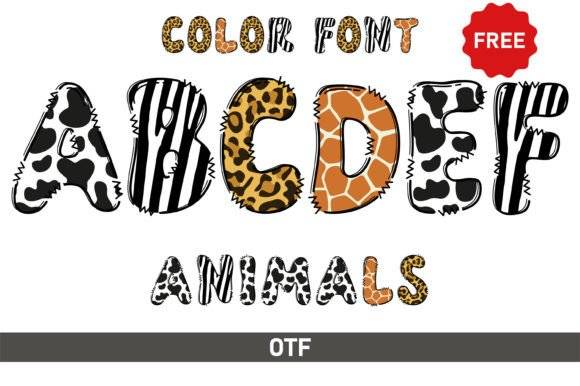
Animals Font for Headlines, Posters and Branding Projects
This download includes the Animals Font, a creative typeface belonging to the font entity category. Designed with animal-inspired elements, it is tailored for attention-grabbing design work in both print and digital contexts. The Animals Font offers unique versatility, making it ideal for various applications such as branding, posters, and children's books. Additionally, it serves as the perfect complement to the anjhay font for creative projects, allowing for a harmonious blend of whimsical and modern design elements. Embrace your imagination and elevate your design work by incorporating this playful typeface into your next creative endeavor.
Perfect for use in children's branding, zoo or wildlife campaigns, and playful poster designs, this font blends theme-specific visuals with typographic structure. It delivers both decorative appeal and brand adaptability. Additionally, its whimsical design captures attention and fosters a sense of fun, making it ideal for various creative projects. Whether used in educational materials or promotional content, the arizonia font for creative projects stands out and resonates with young audiences. This versatility ensures it can be effectively employed across different media and platforms. In addition to its playful essence, the baby magnolia font features soft curves and gentle lines that evoke warmth and approachability. This makes it an excellent choice for storytelling materials, where the aim is to engage and nurture a child's imagination. Its unique character adds a special touch to designs, making any project not only visually appealing but also inviting for little ones.
The font supports expressive design applications where visual storytelling and thematic consistency are key.
- Poster designers and layout artists
- Brand creatives working on themed products
- Educational publishers and classroom decorators
- Marketing teams targeting child-friendly campaigns
- DIY creators developing themed merchandise
- Themed posters and print advertisements
- Headline graphics and book covers
- Zoo and wildlife park merchandise
- Educational worksheets and charts
- Custom signage and campaign logos
- Whimsical styling perfect for child-themed designs
- Works seamlessly for posters and large-format prints
- High visual impact with unique branding potential
Q: Is this font good for kids' designs?
A: Yes, its animal-themed style makes it ideal for children's projects, posters, and classroom materials.
Q: Why does the font look decorative instead of clean?
A: This font is intentionally styled with animal-themed elements. It’s best used for display rather than body text.
| Feature | Animals Font | Generic Font A | Generic Font B |
| Design Style | Animal-themed, decorative | Basic sans-serif | Standard serif |
| Target Use | Posters, branding, kids' media | Office use | Books and reports |